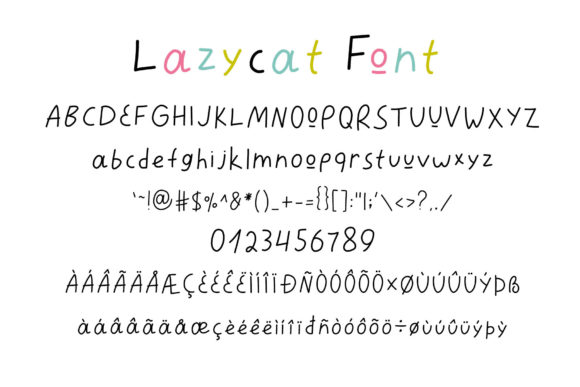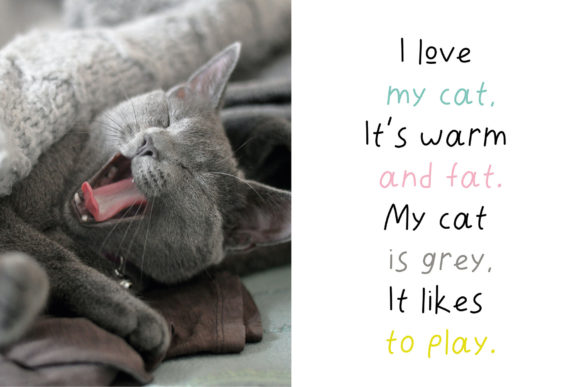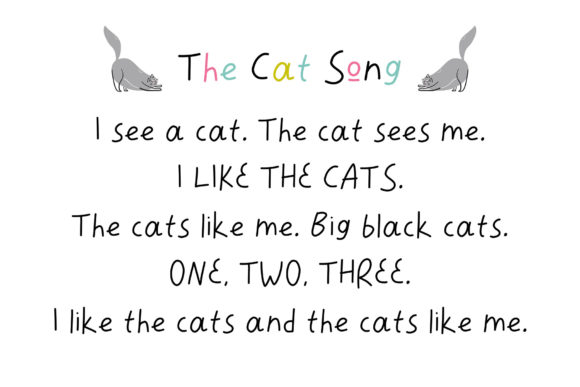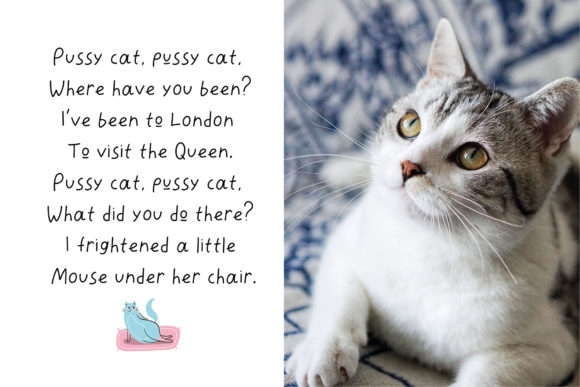
About Lazycat Font
Lazycat is a sweet and laid-back handwritten font that can be used for all chalkboard quotes or teaching material! Its authentic look and feel will add a personal and realistic feel to your designs.